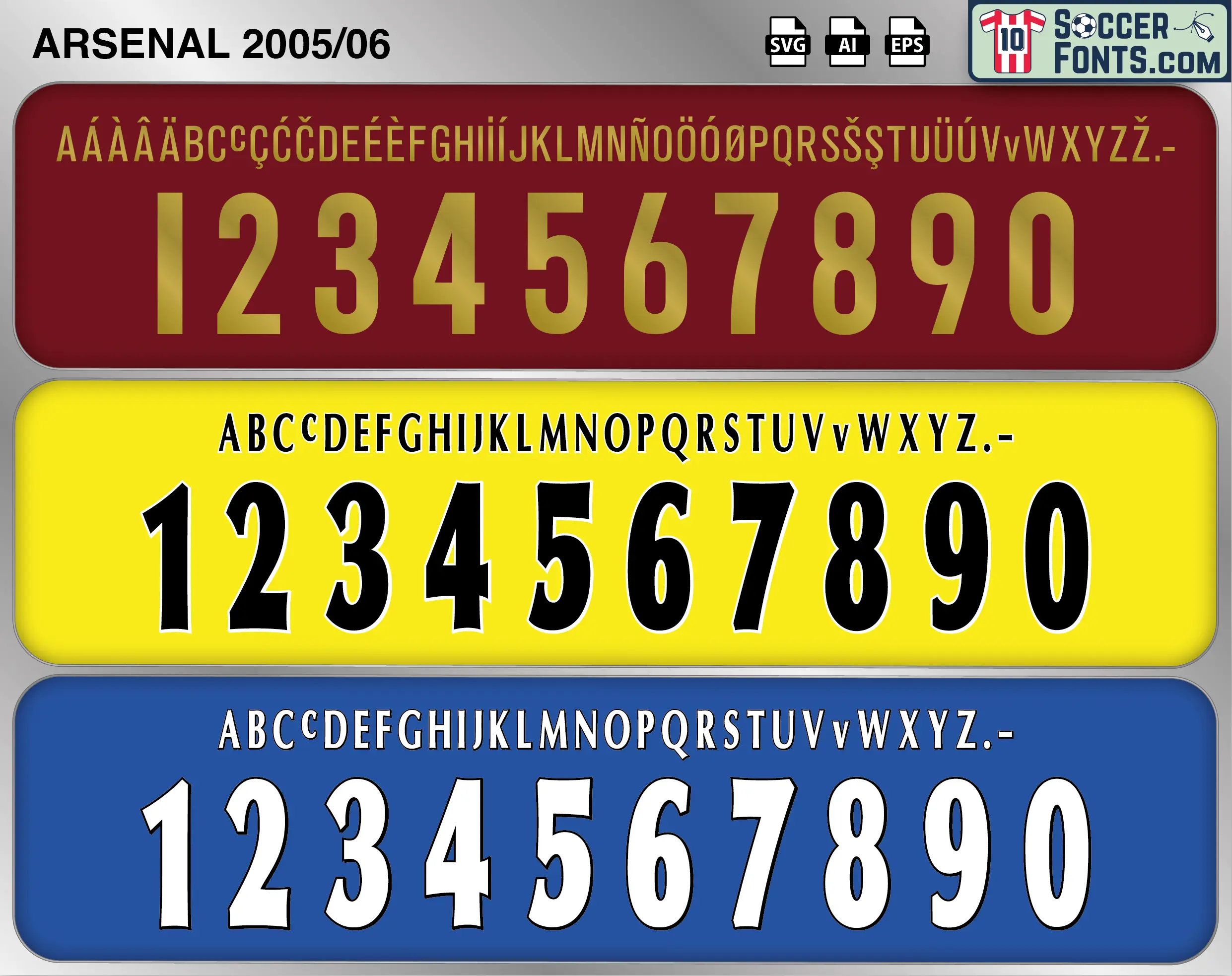
Arsenal 2005-06 Font
The 2005-06 season occupies a special place in Arsenal history, combining the final campaign at Highbury with the club’s greatest UEFA Champions League run. Arsène Wenger’s squad featured Thierry Henry, Dennis Bergkamp, Robert Pirès, Freddie Ljungberg, Cesc Fàbregas, Gilberto Silva and Jens Lehmann during a period of significant transition. Arsenal wore their famous redcurrant home shirt as a tribute to the club’s original colors and to mark the farewell season at Highbury, their home since 1913. Henry remained the defining figure of the team, while younger players increasingly assumed important roles as Wenger prepared Arsenal for a new era at the Emirates Stadium.
The Arsenal 2005-06 Font is closely connected with a campaign remembered particularly for Arsenal’s extraordinary journey through Europe. The Gunners eliminated Real Madrid, Juventus and Villarreal on their way to the 2006 UEFA Champions League Final, with Henry’s goal at the Santiago Bernabéu becoming one of the iconic moments of the era. Arsenal ultimately lost the final to Barcelona in Paris, but the campaign remains the club’s only appearance in a Champions League Final. Combined with the emotional farewell to Highbury and the final Arsenal season of Bergkamp, the 2005-06 campaign became a defining moment between two generations of the club. Shirts from this season consequently hold an important place in Arsenal collecting culture and the wider history of Premier League kits.